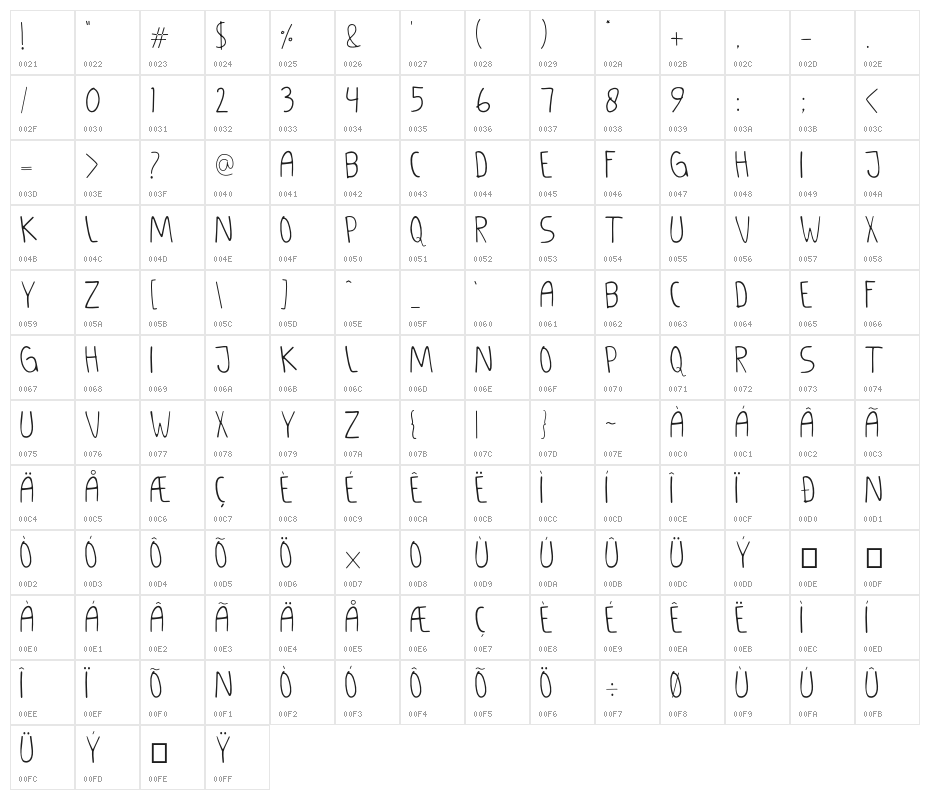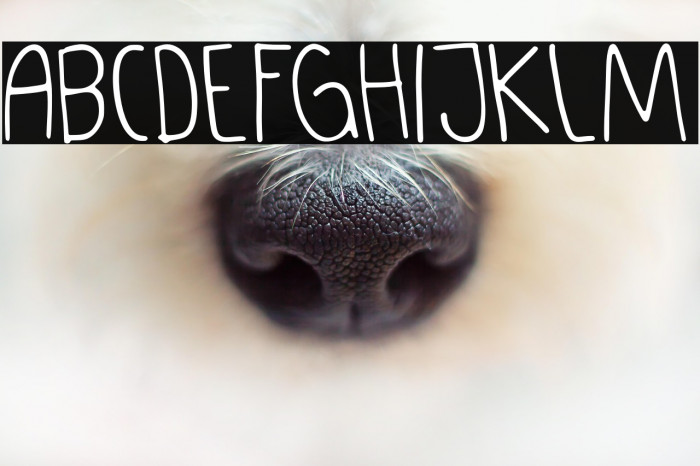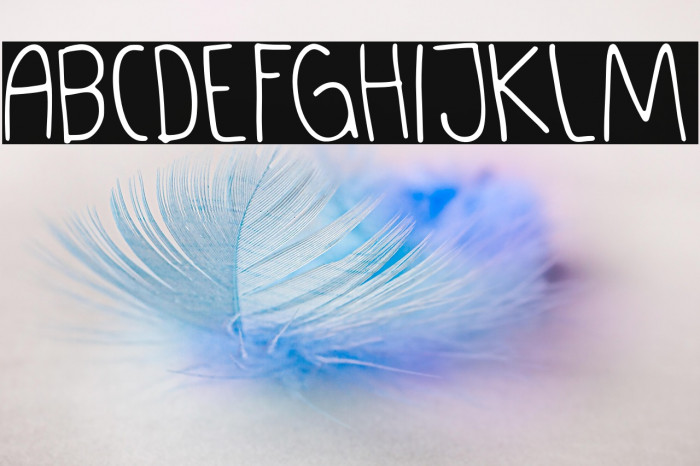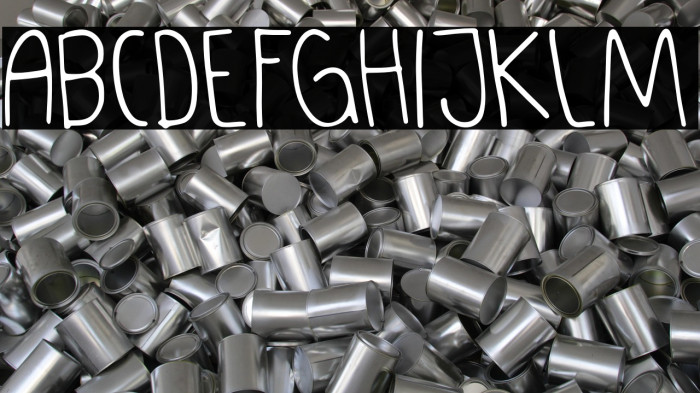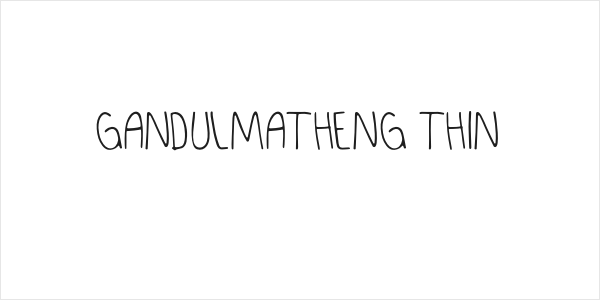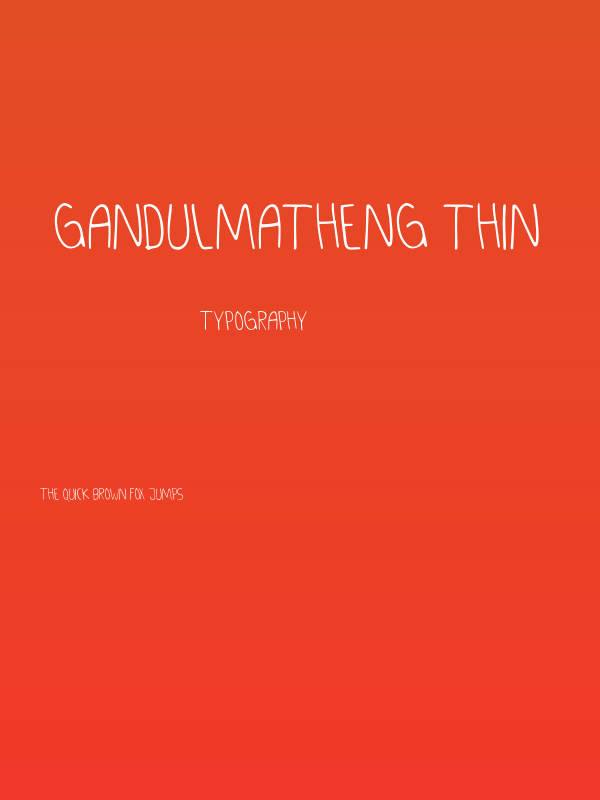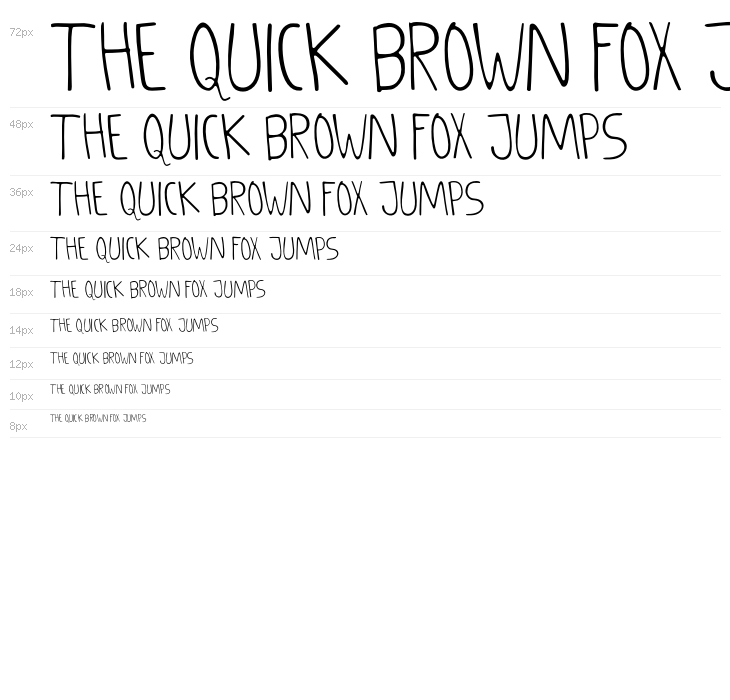
GANDULMATHENG Thin Font
GANDULMATHENG Thin Description
This font features a playful and casual handwritten style with a thin, elongated appearance. The characters are slightly irregular, adding a whimsical and informal touch. The uppercase and lowercase letters maintain a consistent height, contributing to a uniform look. The numbers and special characters follow the same playful design, making them suitable for creative projects. The overall style is approachable and friendly, ideal for designs that aim to convey a sense of fun and creativity.
| Proposed Projects | Ideal for children's books, greeting cards, playful branding, and informal invitations. |